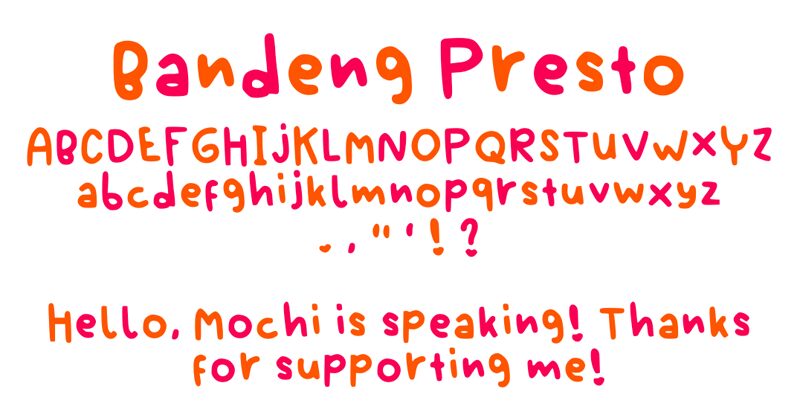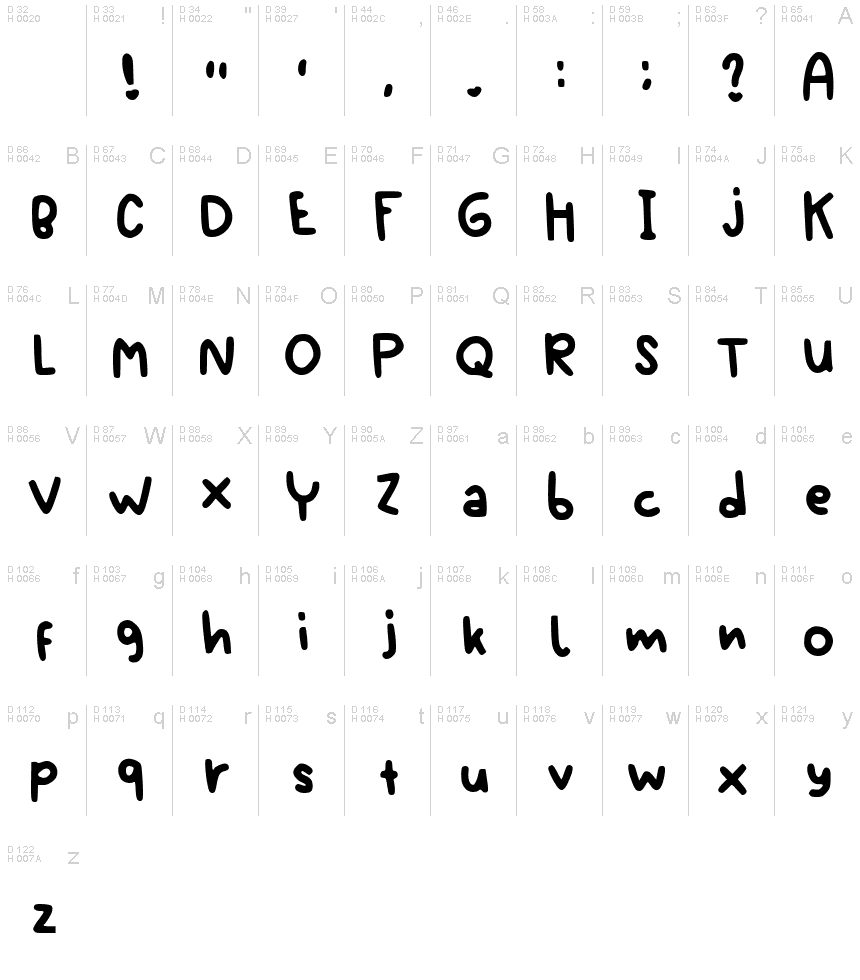
Bandeng Presto Regular
Introducing Bandeng Presto, a handwritten font designed by marmwut. Perfect for creating a personal touch, this font is ideal for crafting logos, invitations, cards and other creative projects. Try adding Bandeng Presto to your designs today!